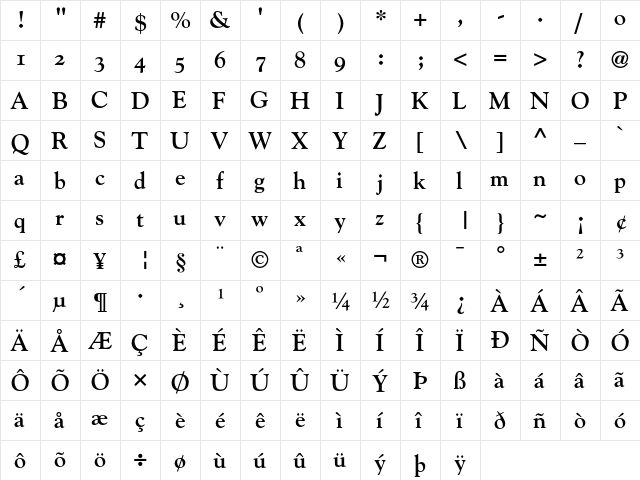
Goudy Bold Old Style Figures
Design Context for Goudy Typeface
Goudy is a composed and adaptable typeface that performs quietly and consistently across a wide range of design contexts. The heavy weight commands attention and anchors typographic hierarchies.